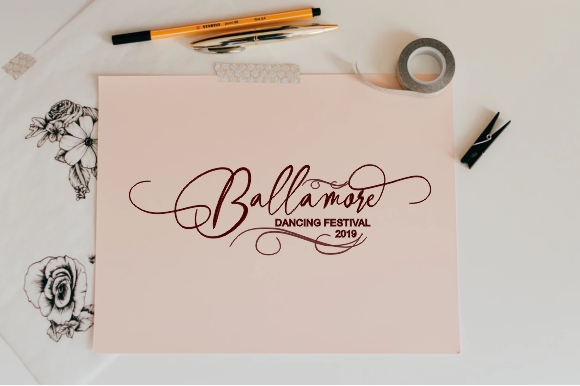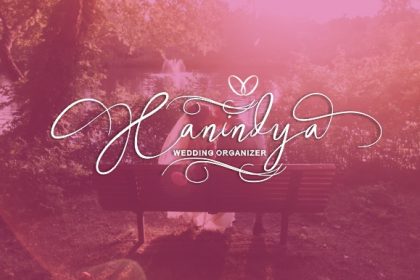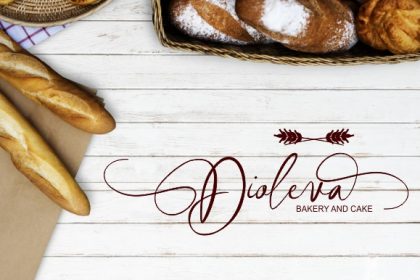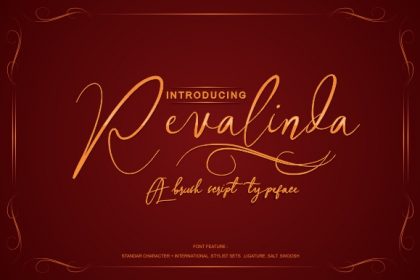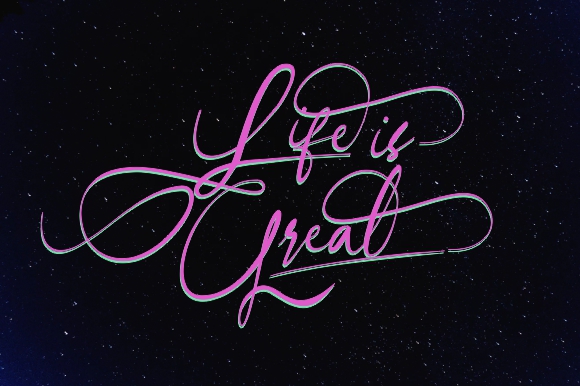
Revalinda Brush Stylist font
Hi all , this is the newest font from me, the idea of this font is to combine handwriting directly with natural. fonts look beautiful and charming, suitable for design that requires a feminine side theme. please make this font the best collection, if you need information, don\\\’t forget to contact me.